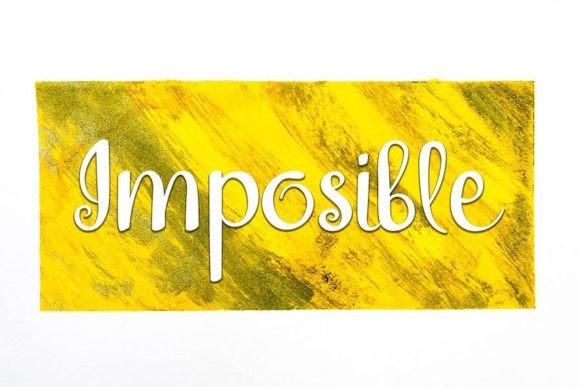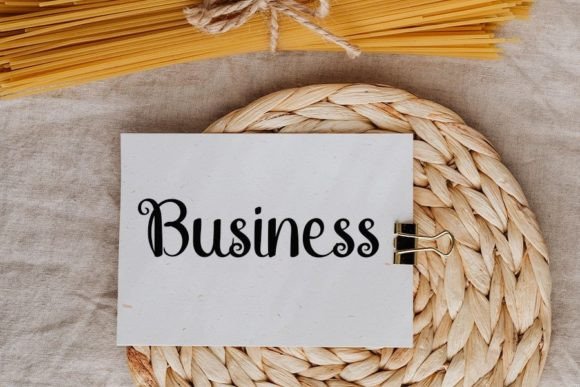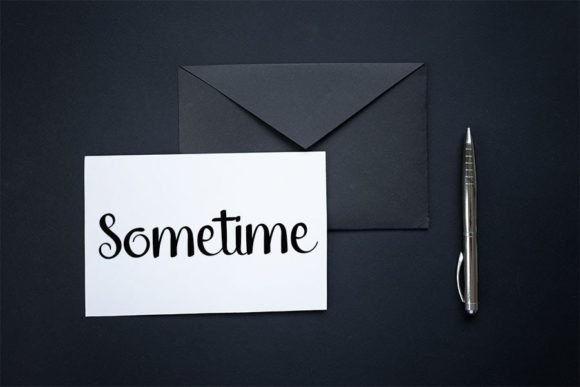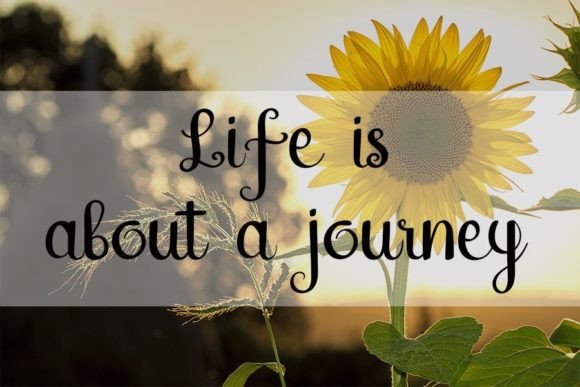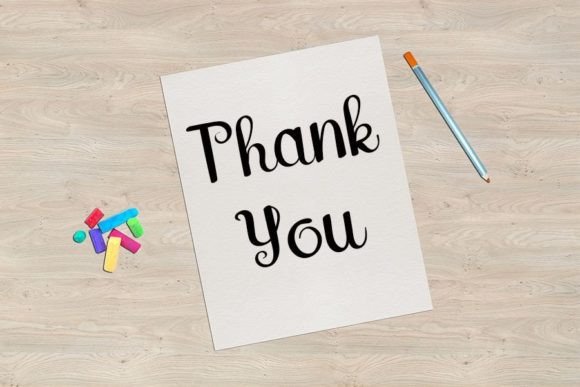
Someone Font
About Someone Font
“Someone” is a friendly handwritten font meticulously crafted to become an instant favorite. Combining classy calligraphic influences with a contemporary and fresh feel, this font adds a touch of sophistication to any creative project. By incorporating “Someone” into your designs, you can elevate them and make them truly outstanding.
The font’s friendly and approachable nature makes it suitable for a wide range of applications. Whether you’re working on branding, social media graphics, invitations, packaging, or any other creative endeavor, “Someone” brings a sense of warmth and charm. Its handwritten style adds a personal touch to designs, making them more relatable and engaging to viewers.
“Someone” strikes the perfect balance between elegance and modernity. Its classy calligraphic influences give it a timeless appeal, while the contemporary and fresh elements ensure its relevance in today’s design landscape. This versatility allows it to seamlessly adapt to various design styles and contexts, making it a valuable asset for designers seeking a font that can effortlessly enhance their creative projects.
Embrace the friendly elegance of “Someone” in your creative endeavors, and let its carefully designed handwritten style transform your projects into standout creations. Whether you’re crafting a logo, designing invitations, or working on any other creative project, this font adds a touch of class and sophistication, making your designs truly outstanding and memorable.